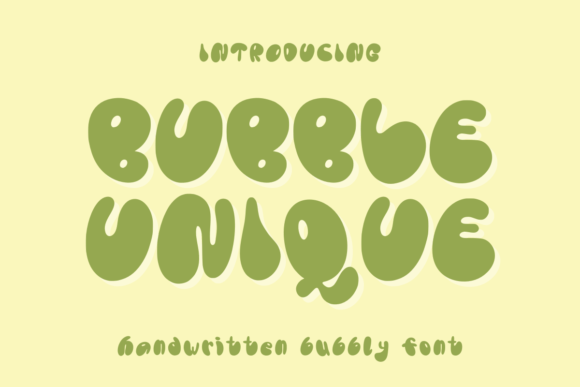
Unlocking the Power of Creativity with the Bubble Unique Font
Have you ever stared at a blank canvas, eager to bring your artistic vision to life, only to be met with a wave of uncertainty? You’re not alone. The struggle to find the perfect font to convey your message is a common challenge many designers face. But what if we told you that there’s a font that can break the mold and set your creativity ablaze?
Meet the ‘Bubble Unique Font,’ a game-changing design element that’s taking the world of creativity by storm. This audacious font is more than just a stylish addition – it’s a statement piece that adds an extra layer of depth and personality to any project. Whether you’re a seasoned designer or a budding artist, the ‘Bubble Unique Font’ is a valuable asset that can elevate your work and help you stand out in a crowded market.
From t-shirts to mugs, the possibilities are endless with the ‘Bubble Unique Font.’ So why settle for ordinary when you can make a splash with this unique and captivating design element?
Bubble Unique Font Key Features
- Unique Design: The Bubble Unique Font features a playful and whimsical design, making it perfect for creative and artistic projects.
- Character Set: The font includes a wide range of characters, including uppercase and lowercase letters, numbers, and punctuation marks.
- Language Support: The font supports multiple languages, including English, Spanish, French, German, and many more.
Bubble Unique Font Review
I recently had the chance to work with the “Bubble Unique Font”, and I must say it’s a pretty interesting choice. The font has a unique personality that can add a touch of whimsy to any design. ✨ I love how it’s versatile and can be used for a variety of purposes, from headings to body text. The font is also highly customizable, which is a big plus in my book.
However, there are a few limitations that I want to point out. ⚠️ First of all, the font can be quite difficult to read in smaller sizes. I found myself having to adjust the font size multiple times to get it just right. Additionally, the font’s unique style can sometimes feel overwhelming, especially when used in large blocks of text. And, in some cases, the font’s “bubble” shape can feel a bit too playful, which may not be suitable for all designs.
- Unique personality and style
- Versatile and can be used for a variety of purposes
- Can be difficult to read in smaller sizes
- May feel overwhelming in large blocks of text
Overall, I think the “Bubble Unique Font” is a great choice for designers who want to add a bit of flair to their designs. With a little bit of caution and careful use, this font can be a real game-changer. But, it’s not for everyone, and I would definitely recommend using it in moderation.
Use Bubble Unique Font in combination with other creative fonts to add visual interest to your designs. Experiment with different font sizes, colors, and styles to create a unique look. Keep it simple and avoid overusing the font to maintain readability.
Bubble Unique Font is ideal for creating playful, modern designs. Use it for social media graphics, blog posts, and other digital content. It’s also great for creating eye-catching headings and titles in presentations and documents.